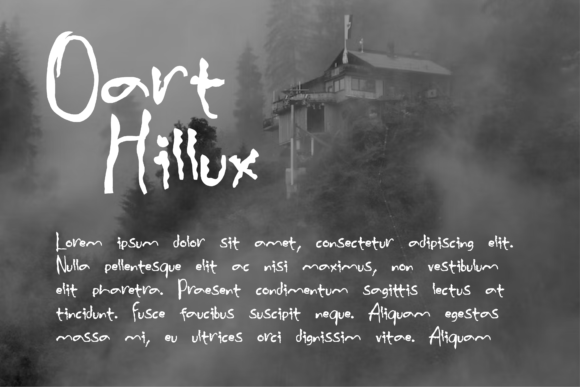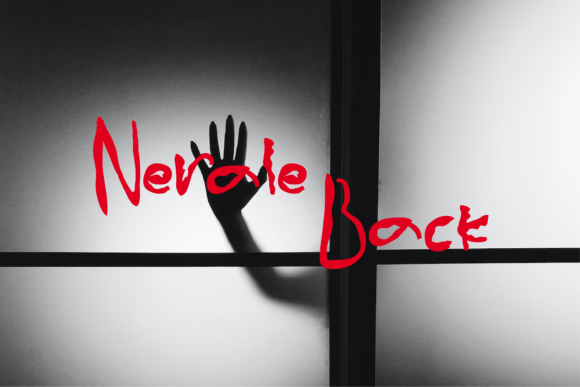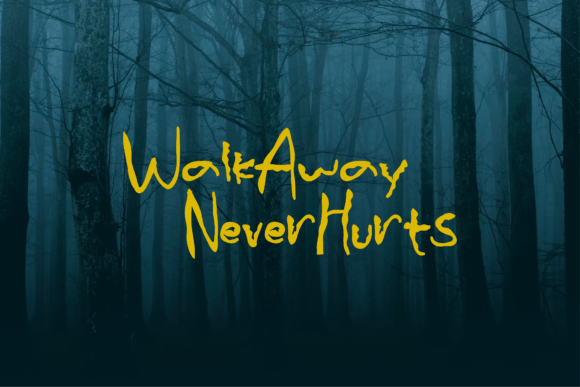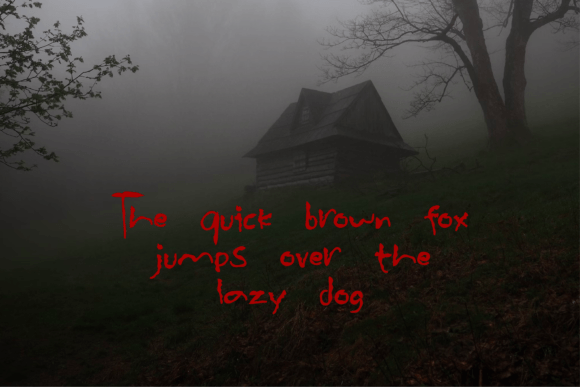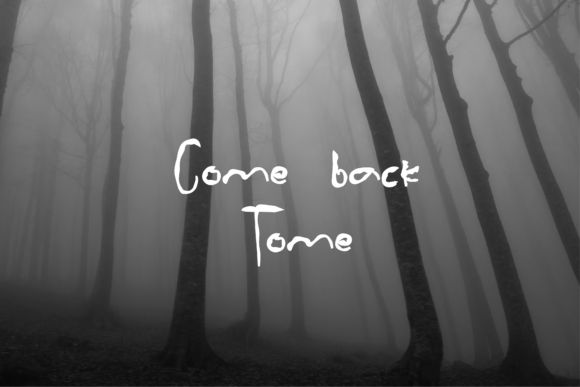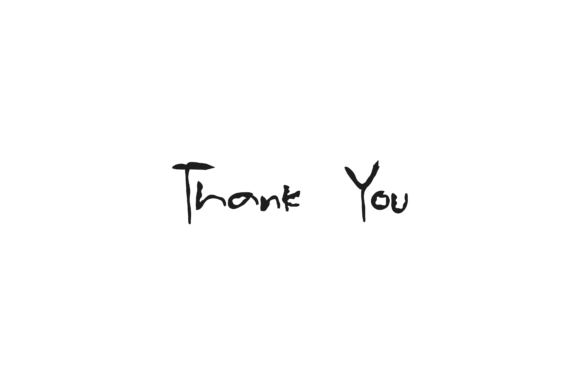
Introduction to Marsmeowl Font
Marsmeowl is a script brush font based on handwritten characters and has a great natural look.
It is perfect for projects such as logos, flyers, social media, web design, banners, wall art and so much more .
Key Features of Marsmeowl Font